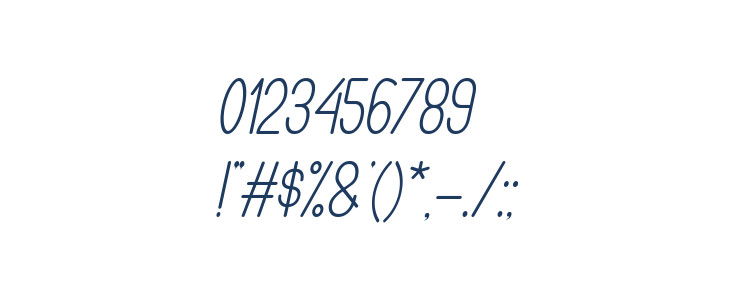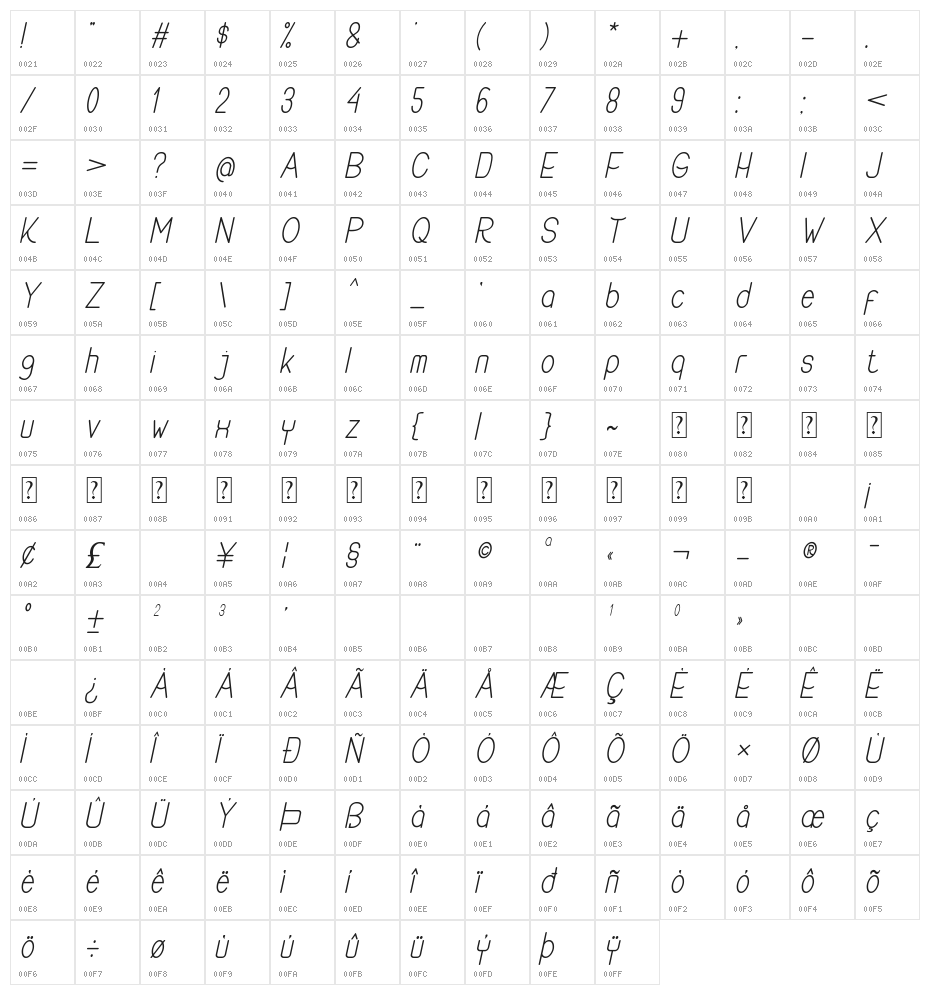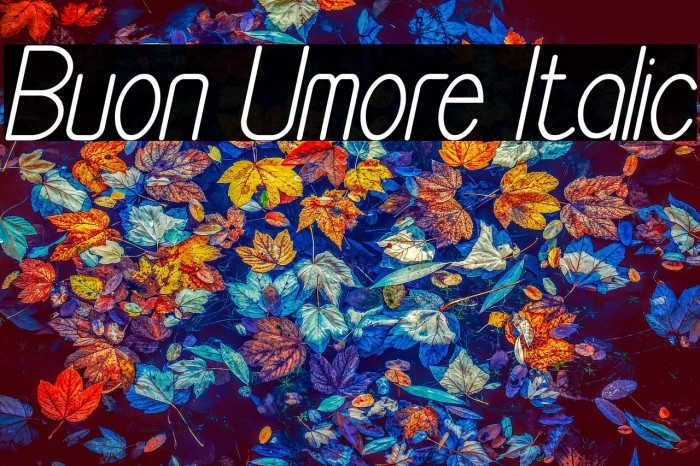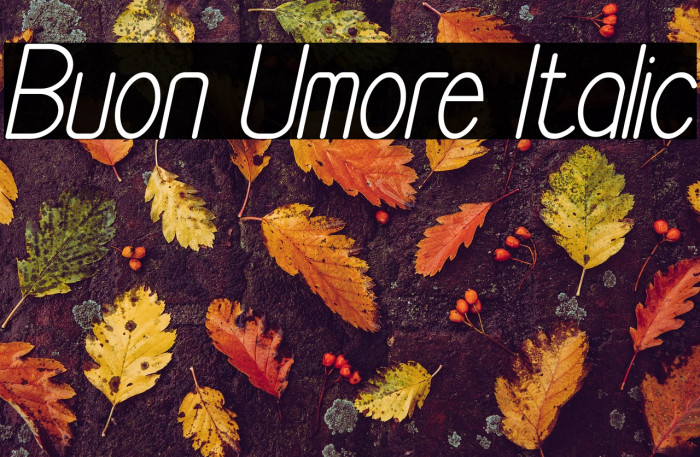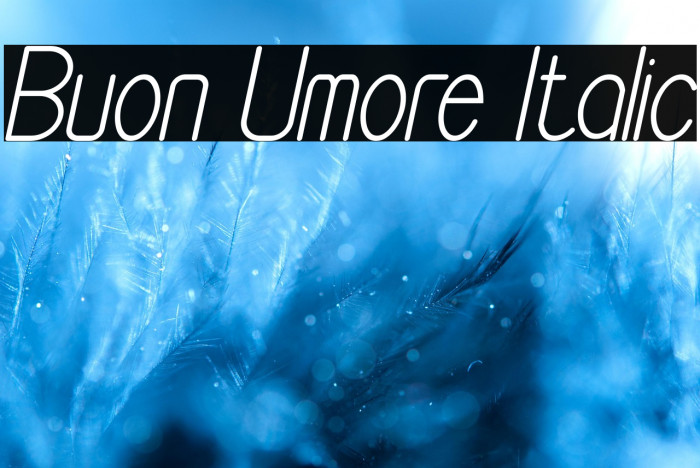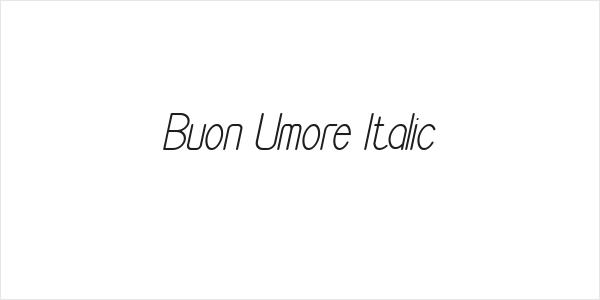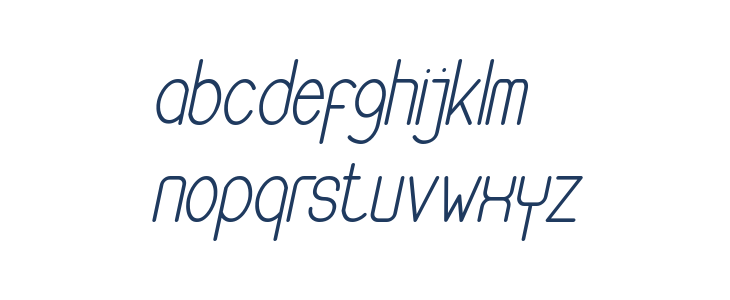
Buon Umore Italic Font
Buon Umore Italic Description
This font features a sleek and modern italic style with a clean, streamlined appearance. The characters are slightly elongated, giving them a sense of motion and elegance. The strokes are consistent in thickness, providing a uniform look across all letters and numbers. The font maintains a balance between readability and style, making it suitable for various applications. The special characters are well-integrated, matching the overall aesthetic of the font. Its design is both contemporary and versatile, ideal for projects that require a touch of sophistication.
| Proposed Projects | Ideal for branding, fashion magazines, modern websites, and elegant invitations. |